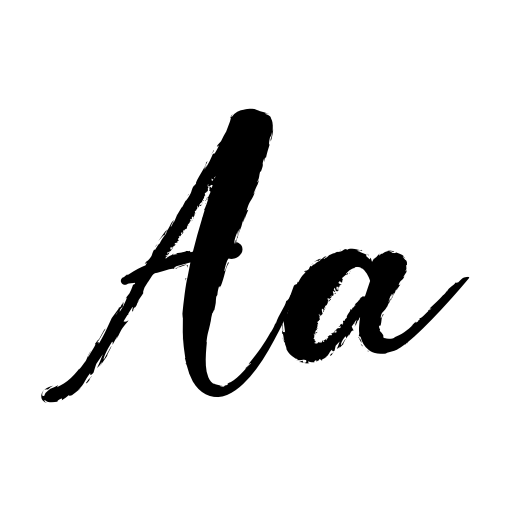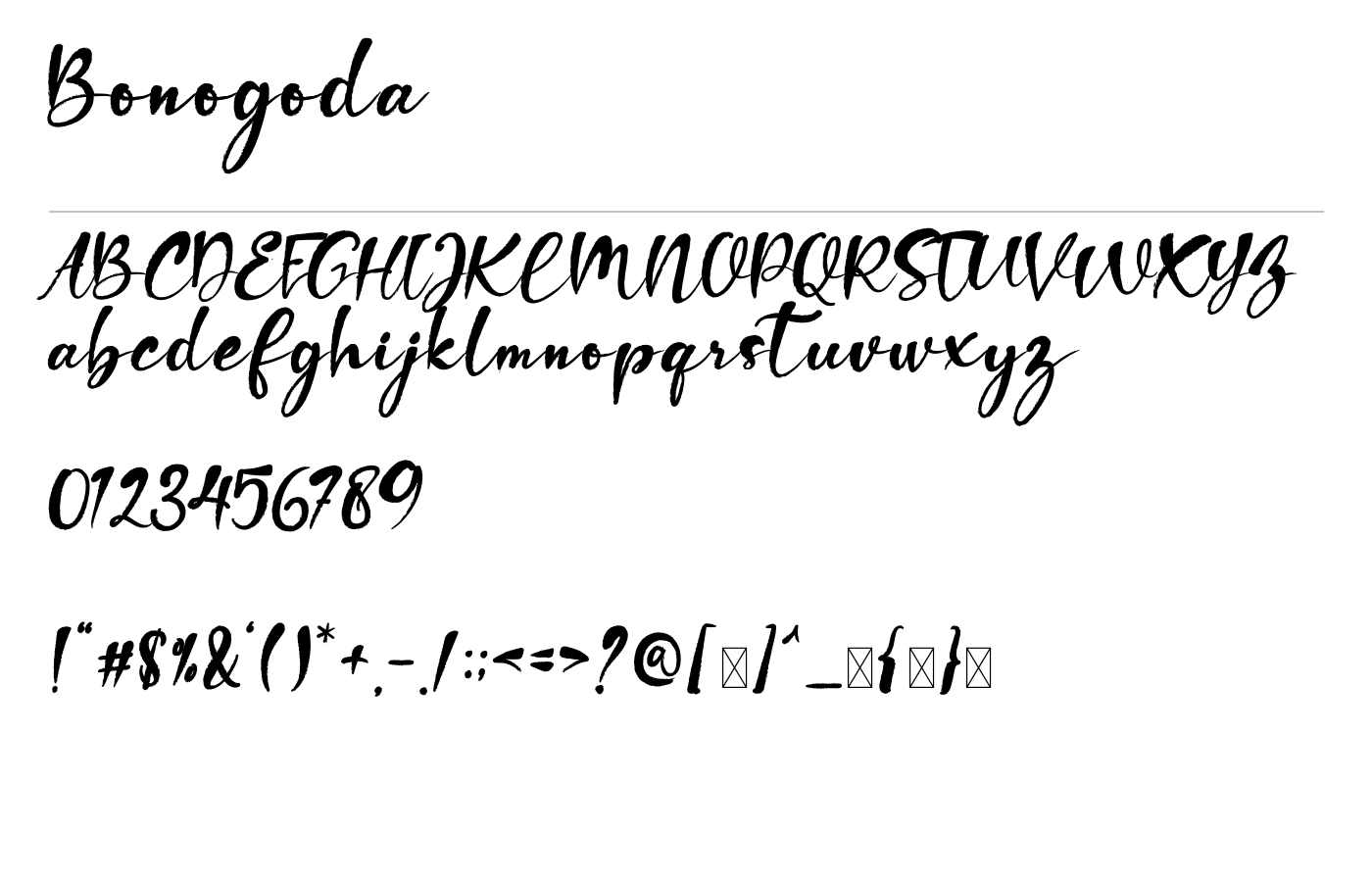
Bonogoda is a lively script font with a brush-style texture that gives it a handwritten, artistic feel. Its medium weight strokes vary in thickness with smooth, flowing curves, making it perfect for creating warm, personal, and creative designs. This font works especially well for branding, invitations, and editorial headlines where a casual yet elegant touch is desired.
Bonogoda Font
About Bonogoda Font